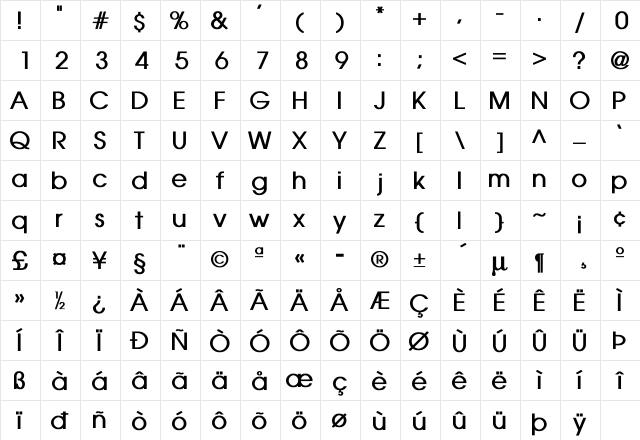
Stockton Bold Font Preview
Stockton Bold
Design Context for Stockton Typeface
Stockton offers clean, dependable letterforms without strong stylistic allegiance, making it a practical choice for designers who need flexibility. Its bold stroke weight gives it real presence on the page.
Pro Tip: Use Stockton in both headline and body roles to test its range before committing to a single application.